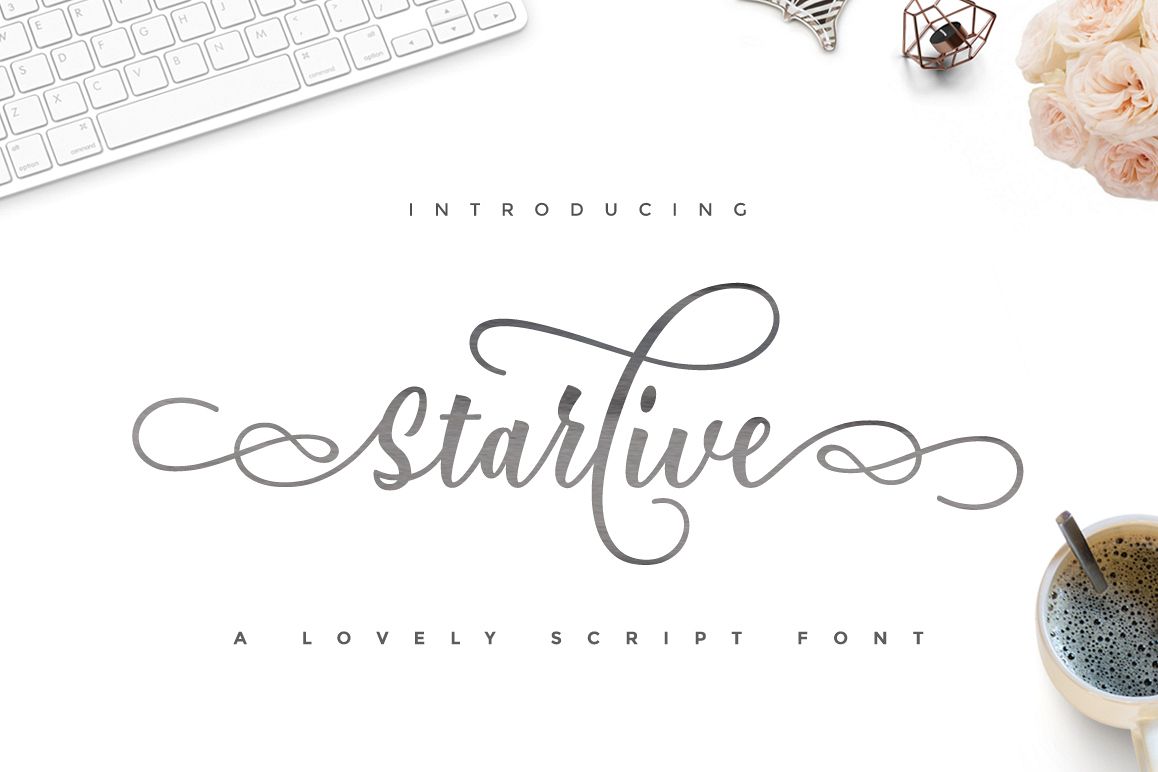
Starlive Script
Starlive Script is a beautiful and interesting calligraphy handwriting font. You can see from scratches that give a realistic and modern style. font looks sweet and full of the best characters. you can use this font in your design product range like invitation, mockup, embossed, branding card and others.
Starlive Script includes a full set of large and attractive international letters, numbers, punctuation and ligatures. All lowercase letters include the beginning and end of the swashes. Also, follow multilingual symbols. The script is encoded with PUA Unicode, which allows full access to all additional characters without special design software.